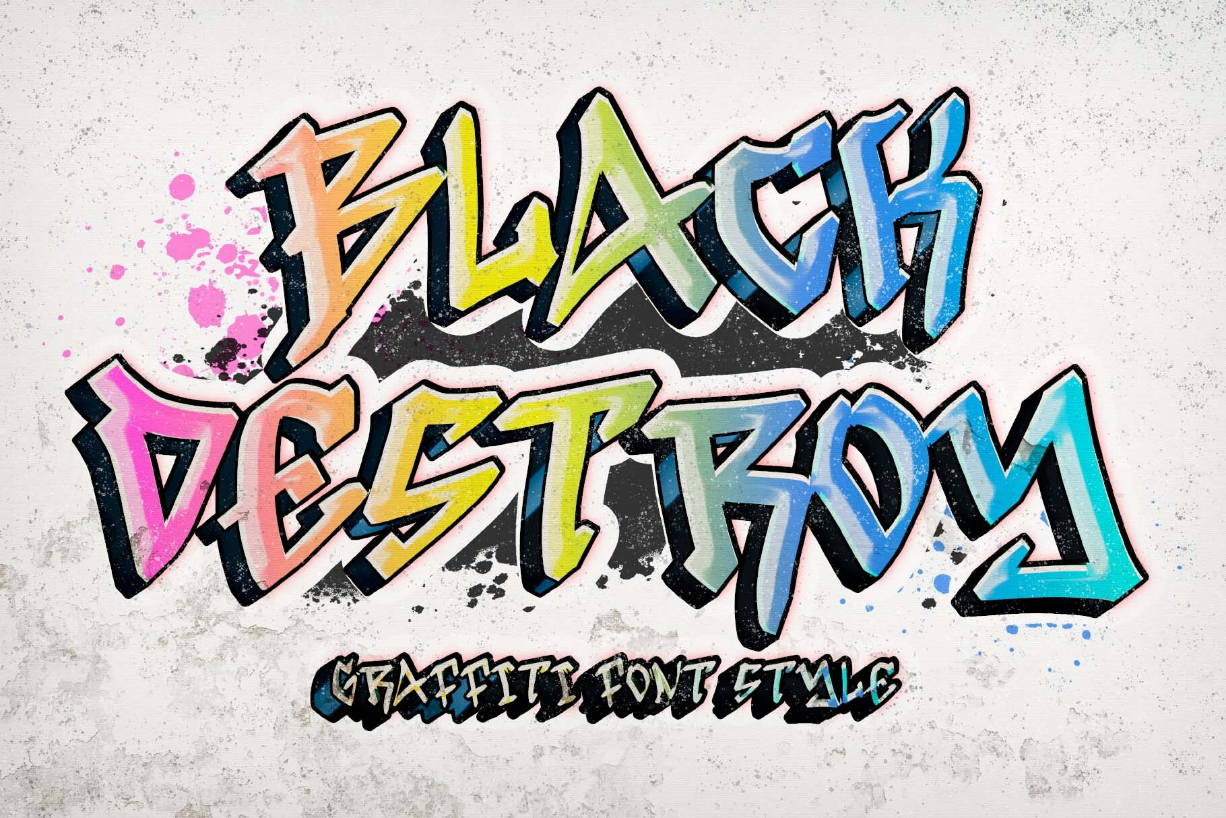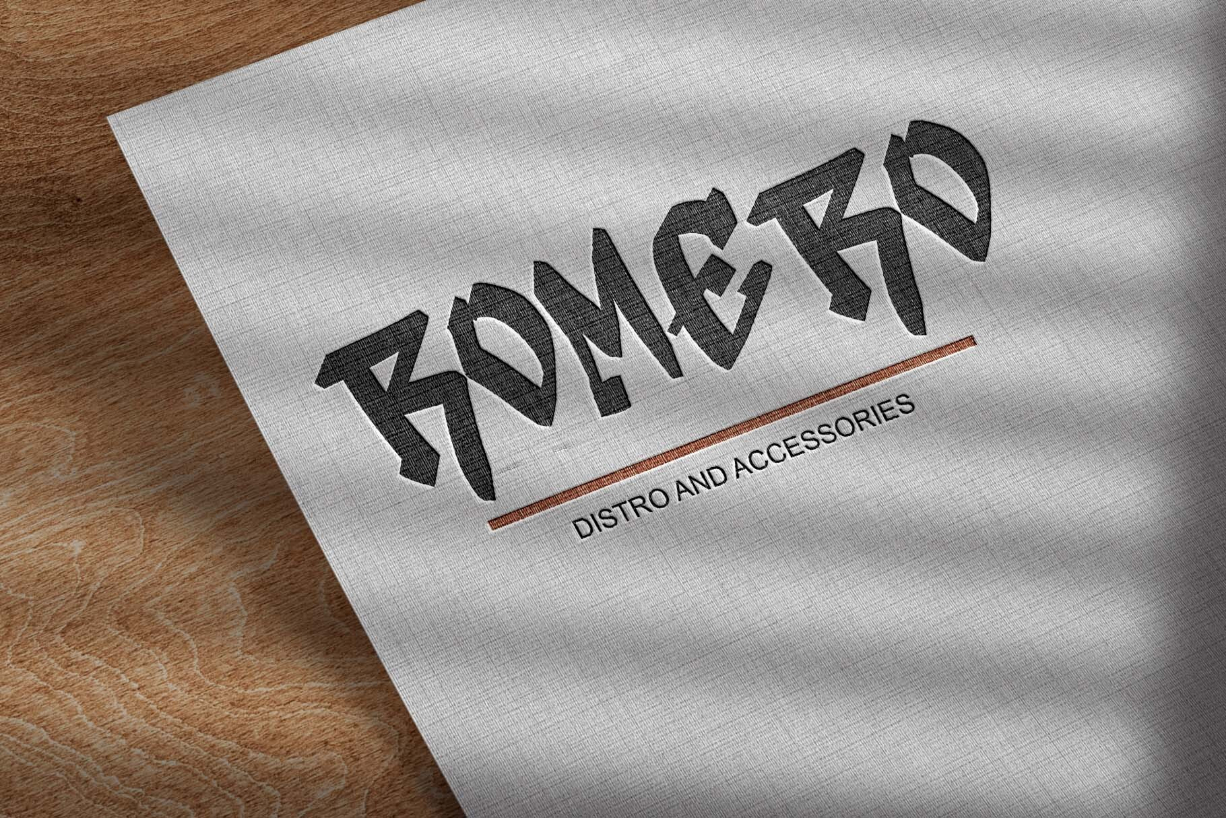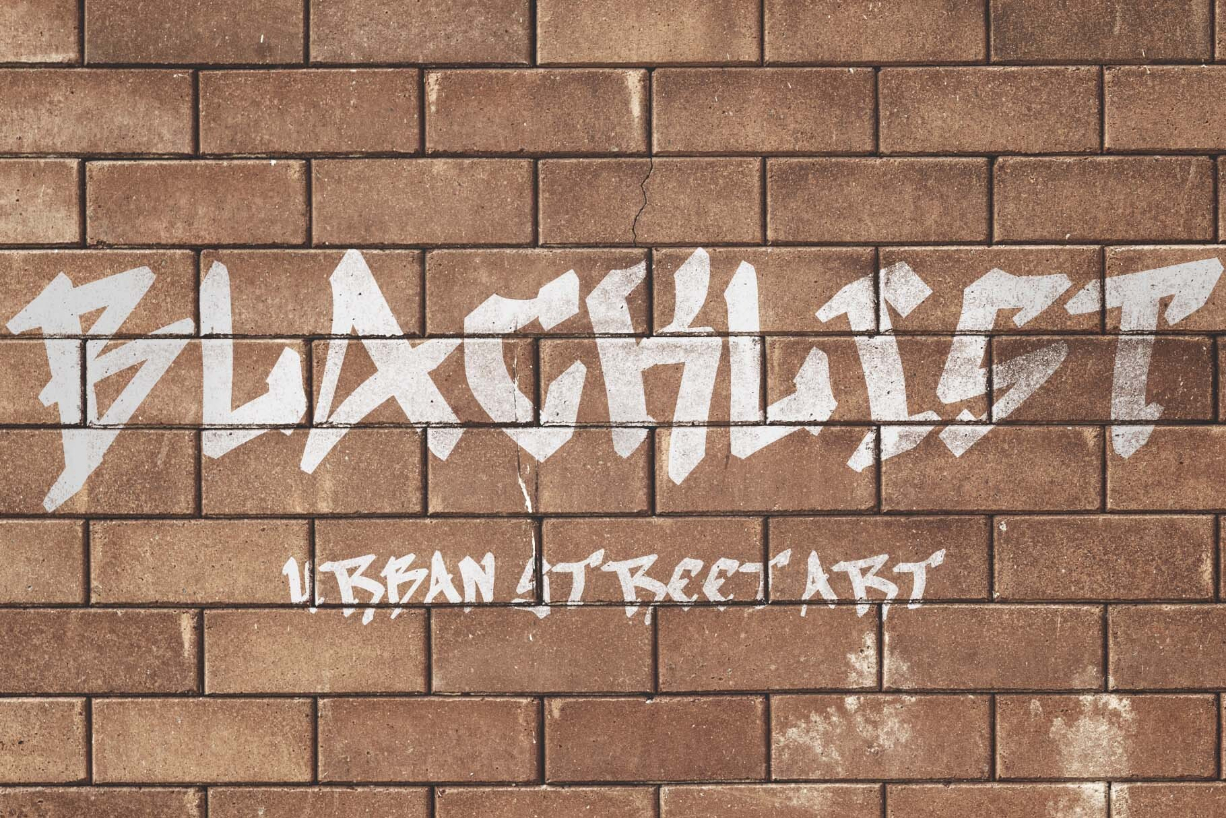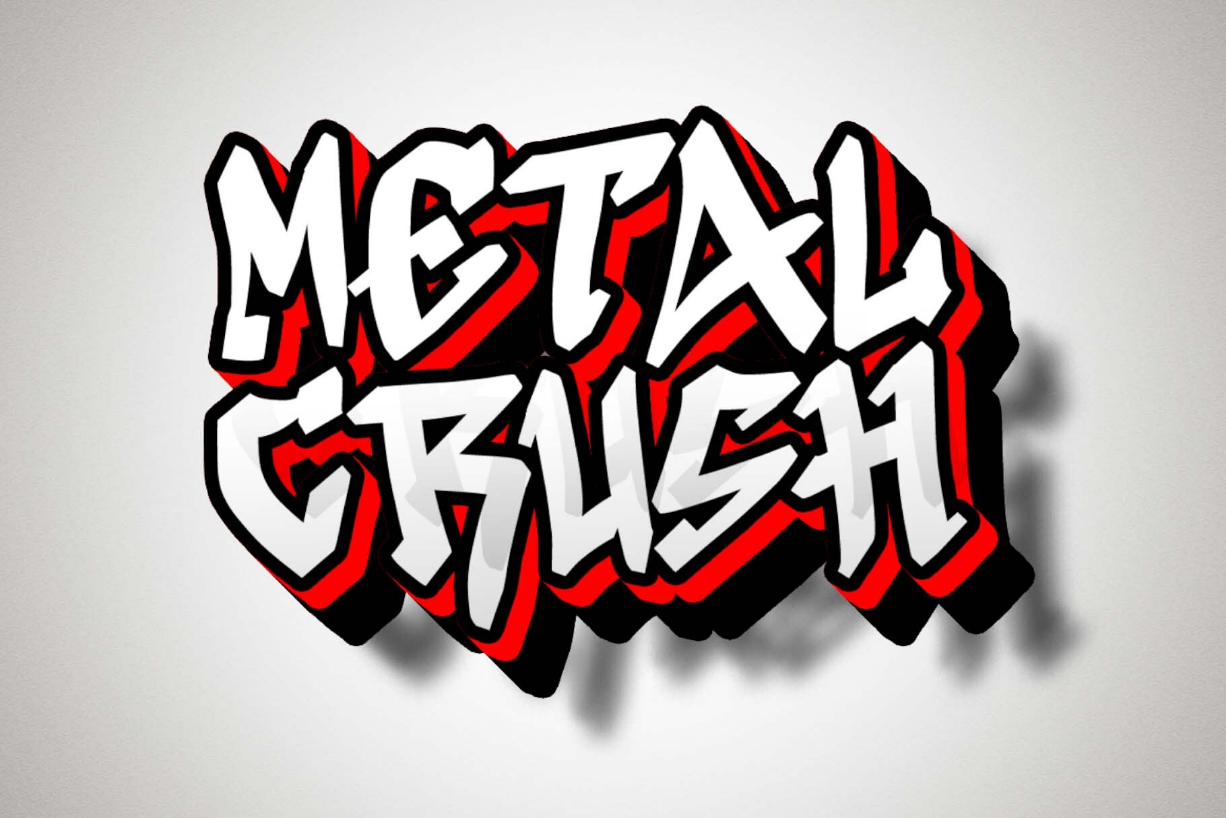
Black Destroy Font
About Black Destroy Font
“Black Destroy” is a unique and elegant graffiti font. This font is equipped with uppercase, lowercase, numerals, punctuation, and multilingual support. Very suitable for posters, banners, stickers, branding, logos, wall art, street art, urban wall art, tattoos, and others.